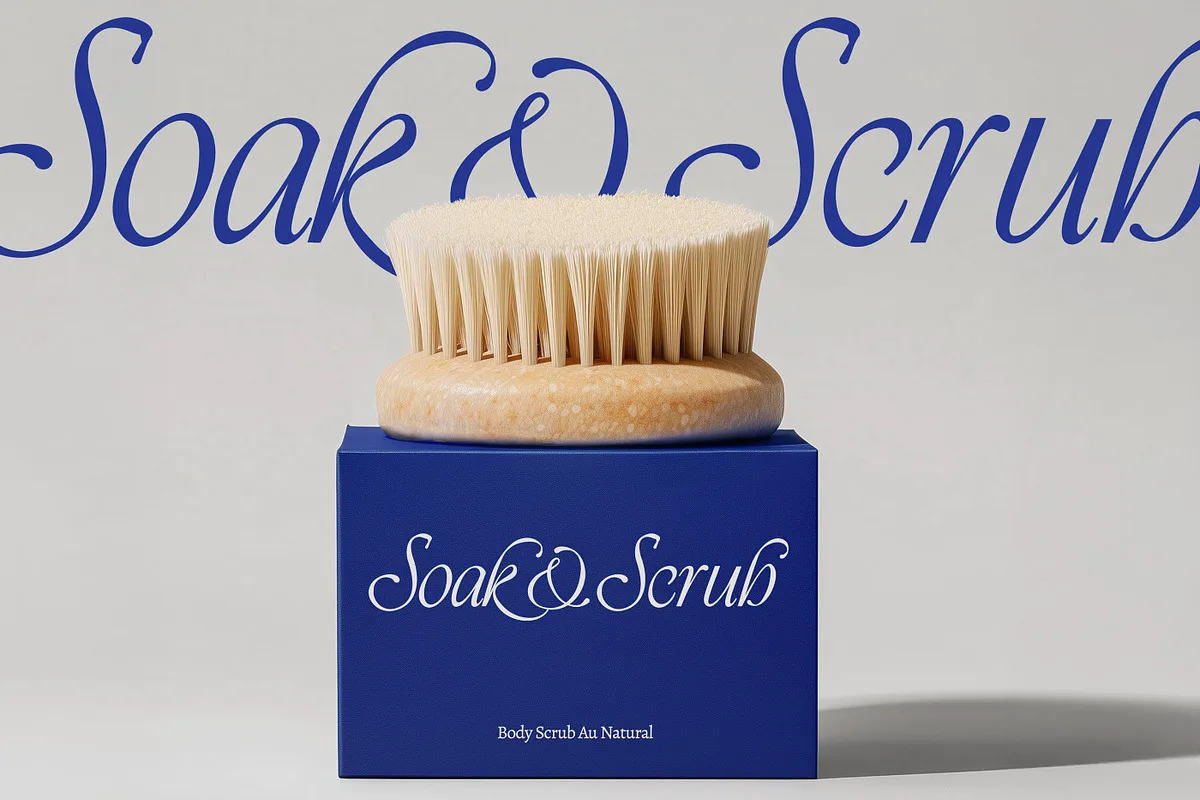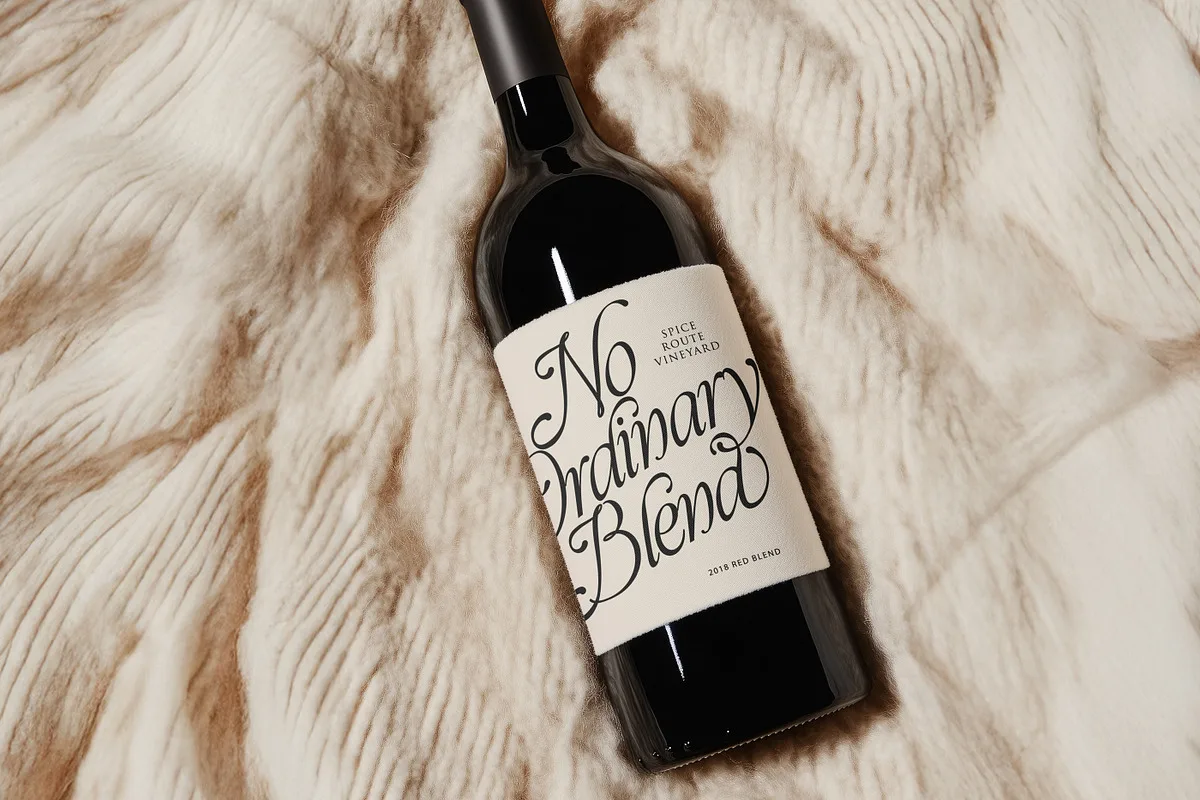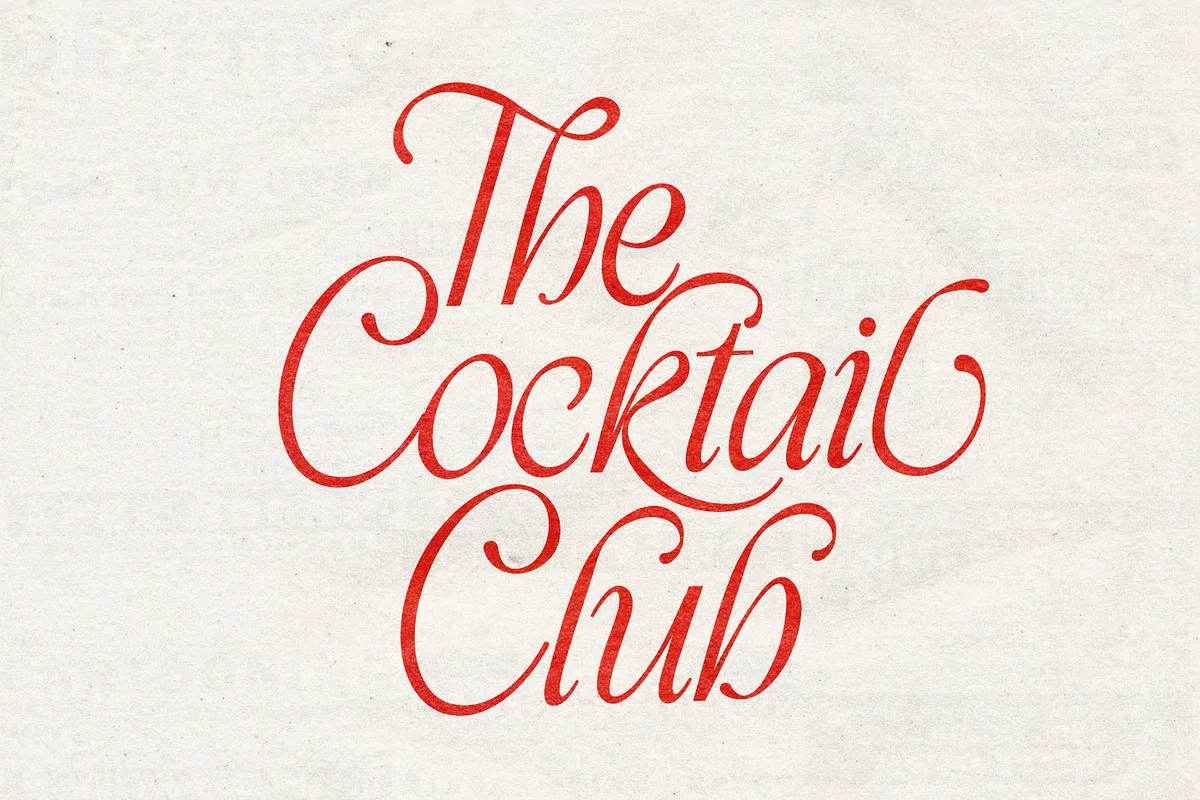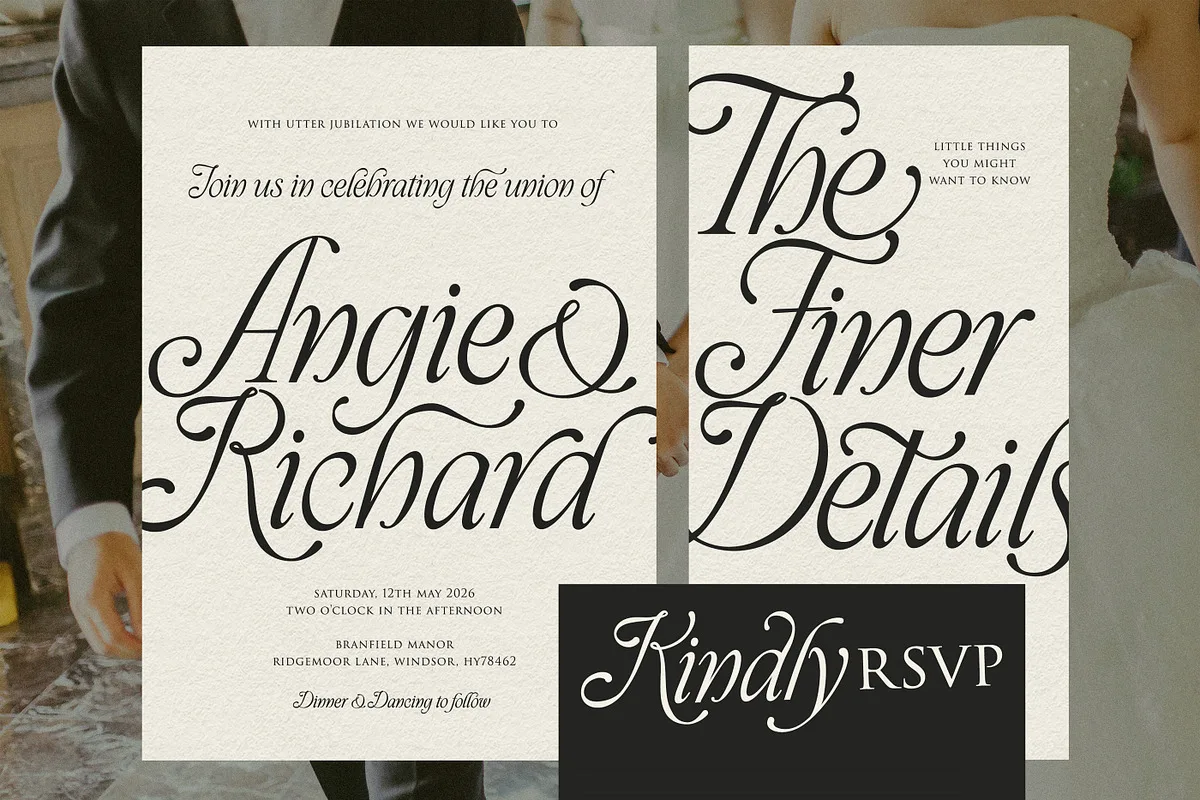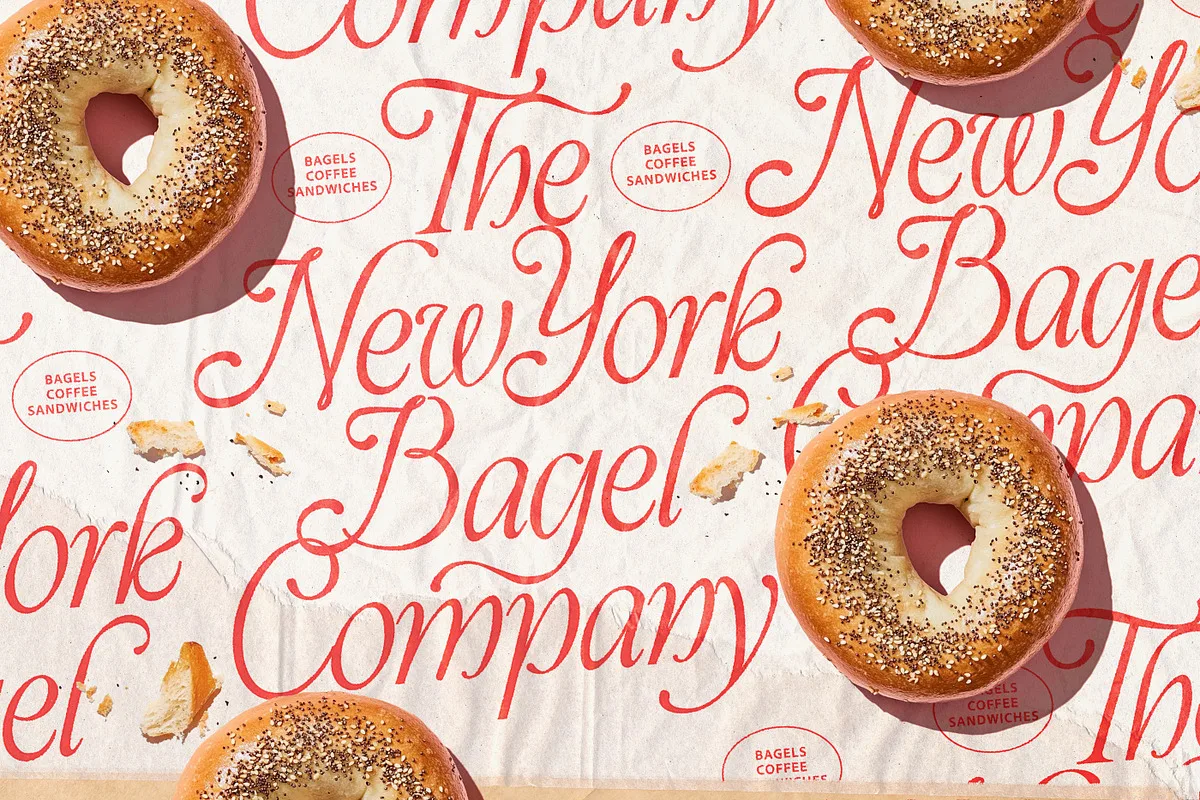
Take Me To Tuscany Font
Take Me To Tuscany is a decorative italic serif by Nicky Laatz. Its sweeping strokes give a short name or headline a strong visual role; the same flourishes can compete with neighbouring letters in a long line. It is most useful when the lettering has space around it, such as a wedding name, invitation heading, or boutique wordmark.
The full typeface lists 82 alternate characters and ligatures, plus closely related variants. Those options matter when a particular capital or pair of letters does not fit your layout. Check the exact words in your project in the maker's preview before choosing a variant.
• Designer: Nicky Laatz.
• Style: calligraphic italic serif with alternate glyphs and ligatures.
• Best starting point: short display text with generous spacing; use a quieter face for supporting copy.
Look at both the full alphabet and the real-world examples below. For an invitation or logo, check how the first and last swashes behave beside nearby letters. The decorative forms are a design feature, so judge them at the size at which your project will be seen.